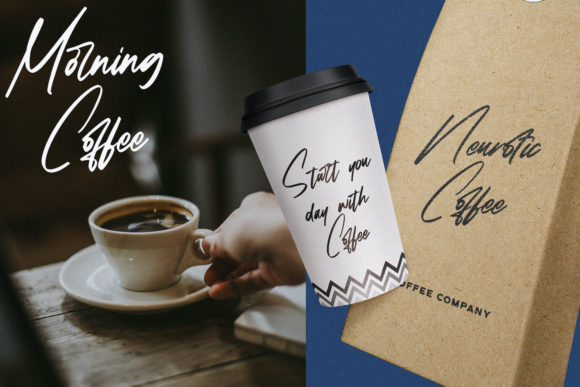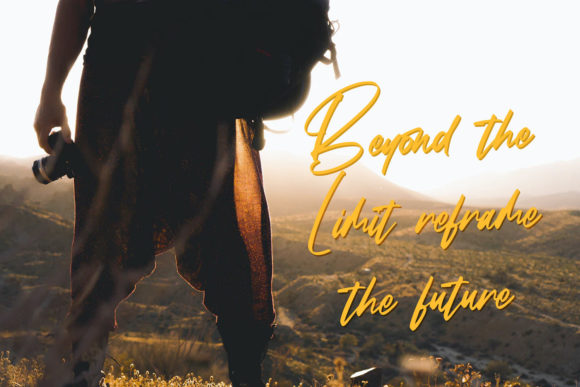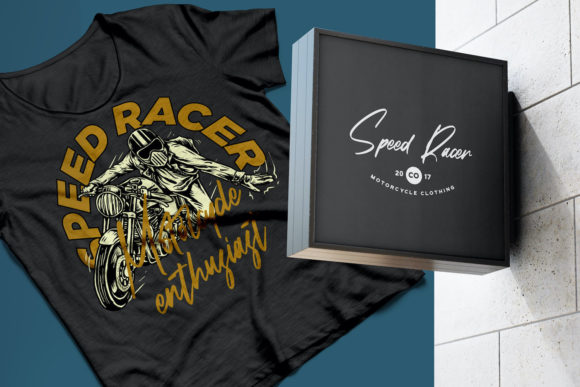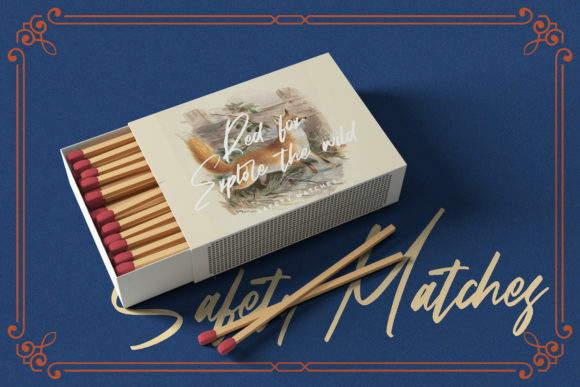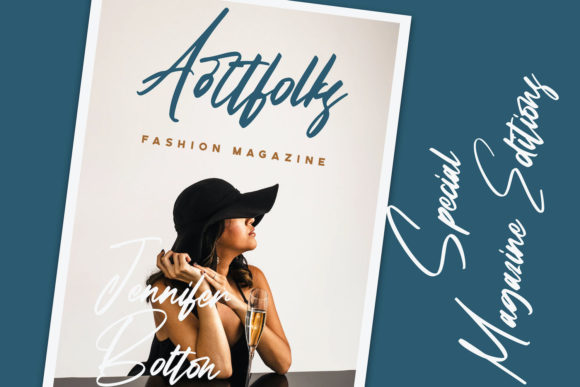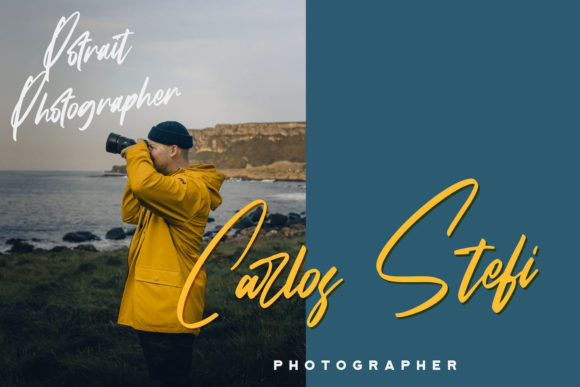
Introducing Falcon Harfing Font: Elevate Your Designs with a Stylish Cursive and Retro Touch
In the world of typography, fonts play a crucial role in conveying the tone and personality of a design. For designers and crafters looking to add a touch of nostalgia and style to their projects, Falcon Harfing Font is an excellent choice. This cursive and retro-looking handwritten font is crafted to give your headlines and logotype projects a confident, dynamic, and stylish touch.
What Makes Falcon Harfing Font Stand Out?
Falcon Harfing Font boasts a unique blend of cursive and retro elements, making it a standout in the world of typography. Its strong, confident, and dynamic appearance makes it perfect for designers looking to add a touch of personality to their work. Whether you’re working on a logo, headline, or any other design project, Falcon Harfing Font is sure to make a lasting impression.
Key Features of Falcon Harfing Font
- Cursive and Retro Style: Falcon Harfing Font features a beautiful cursive and retro style that adds a touch of nostalgia to your designs.
- Handwritten Appearance: The font’s handwritten appearance gives it a personal and unique touch, making it perfect for designs that require a human touch.
- Strong and Confident: The font’s strong and confident appearance makes it perfect for headlines, logotypes, and other design projects that require a bold statement.
- Dynamic and Stylish: Falcon Harfing Font is designed to add a touch of style and dynamism to your designs, making it perfect for creative projects.
Uses of Falcon Harfing Font
Falcon Harfing Font is a versatile font that can be used in a variety of design projects, including:
- Logo Design: The font’s strong and confident appearance makes it perfect for logo design projects that require a bold statement.
- Headlines and Titles: Falcon Harfing Font is ideal for headlines and titles that require a touch of style and dynamism.
- Branding and Packaging: The font’s unique and stylish appearance makes it perfect for branding and packaging projects that require a personal touch.
- Invitations and Stationery: Falcon Harfing Font can be used to create beautiful invitations, stationery, and other paper goods that require a touch of elegance.
Tips for Using Falcon Harfing Font
To get the most out of Falcon Harfing Font, here are some tips to keep in mind:
- Use it for Headlines and Titles: The font’s strong and confident appearance makes it perfect for headlines and titles.
- Experiment with Colors and Textures: Falcon Harfing Font looks great with a variety of colors and textures, so don’t be afraid to experiment.
- Pair it with Other Fonts: The font’s unique appearance makes it perfect for pairing with other fonts to create a unique and stylish look.
Falcon Harfing Font is a stylish and versatile font that can add a touch of nostalgia and personality to your designs. Its strong, confident, and dynamic appearance makes it perfect for a variety of design projects, from logos and headlines to branding and packaging. With its cursive and retro style, Falcon Harfing Font is sure to make a lasting impression on your audience.